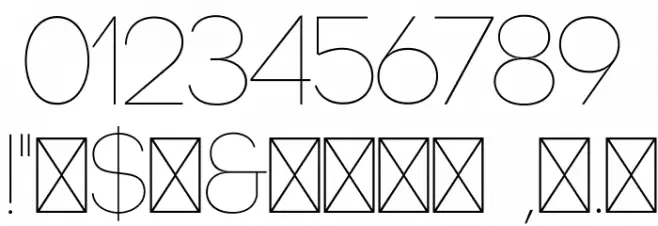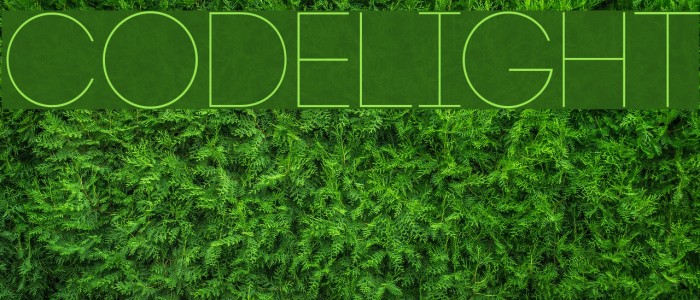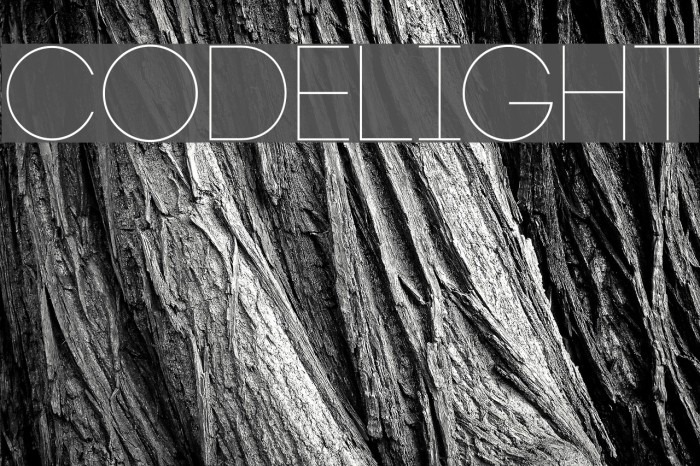
Code-Light Font
Code-Light Description
This font features a clean and minimalistic design with a geometric structure. The characters are constructed with thin, uniform lines that give it a light and airy appearance. The uppercase letters are tall and elegant, while the lowercase letters maintain a consistent style, enhancing readability. The numerals are distinct and clear, matching the overall aesthetic of the font. Special characters are included, maintaining the same thin line style, which adds to the font's versatility. This font's simplicity and clarity make it suitable for modern and contemporary designs.
A geometric, thin-lined font with a modern and minimalistic style from Sans Serif fonts.
- Proposed Projects: Ideal for modern branding, minimalist posters, clean website headers, and contemporary editorial design.